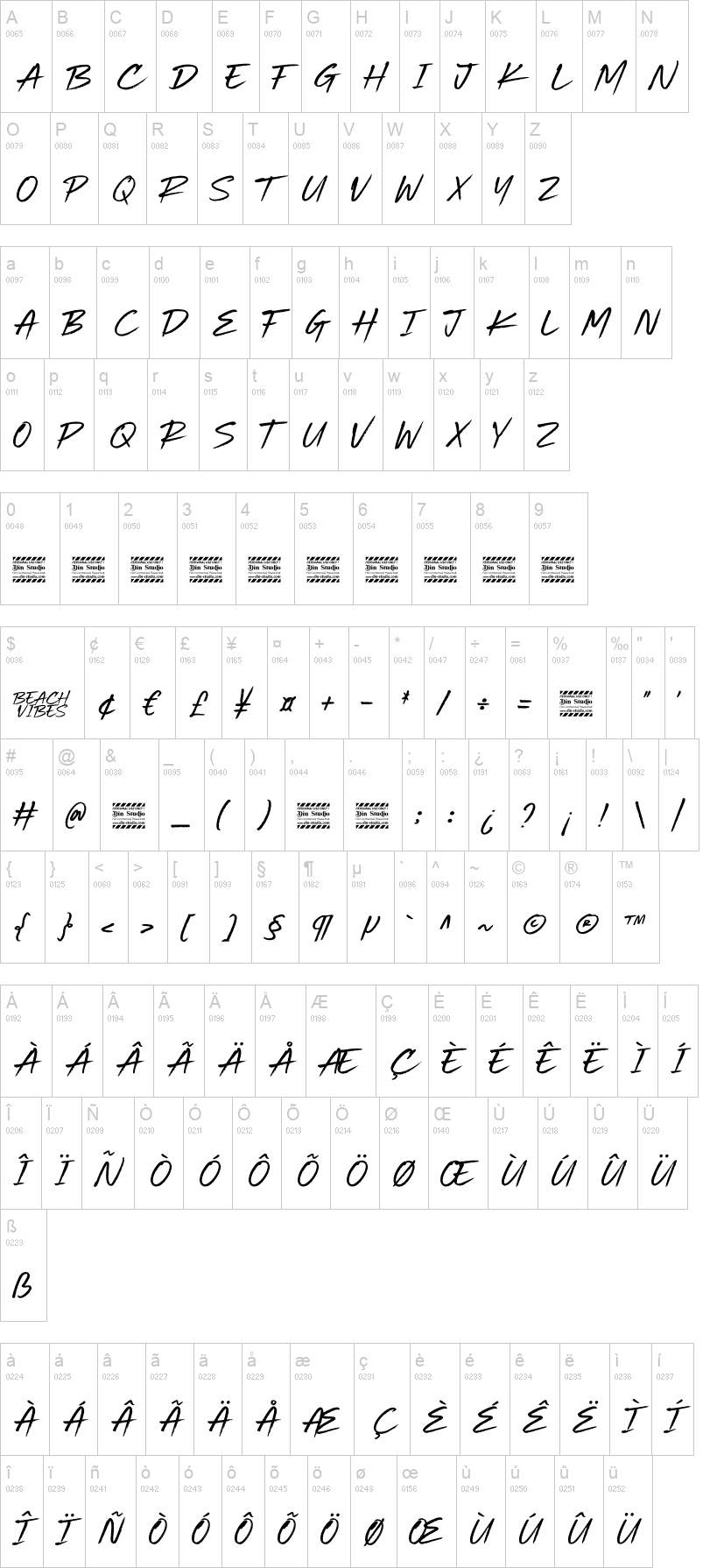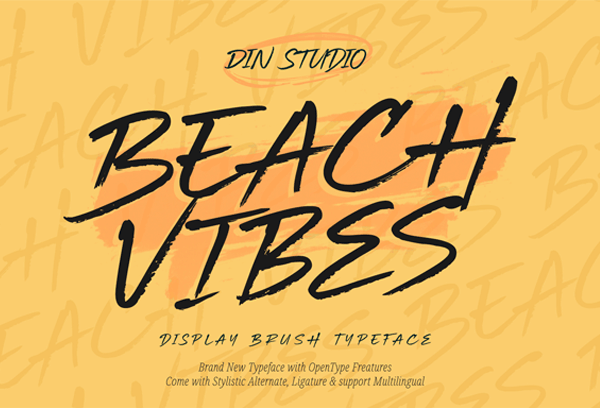
Beach Vibes is an awesome font. A display font that is accompanied by a fabulous handcrafted script brush font that works together in perfect harmony. This font made all in uppercase that easy on the eyes and nice to look while its also easy to read Designed primarily as a captivating font to add the right amount of modernity and style, Great choice for your logo, book cover, poster, t-shirt,branding, and advertisement needs.